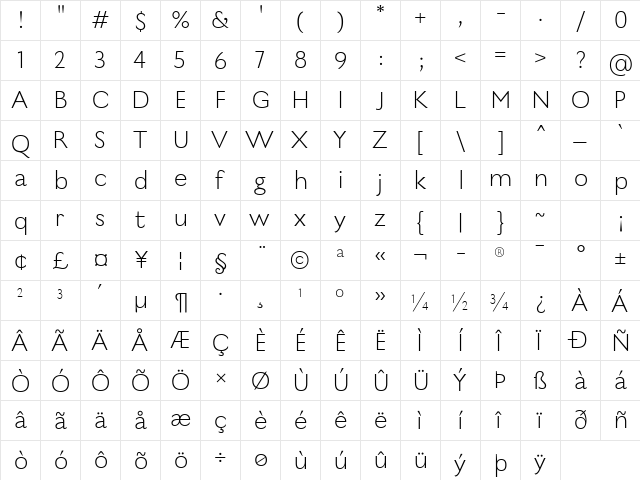
Poison Regular
| Designer | jaikishan Patel |
Design Context for Poison Typeface
Poison takes a measured approach to typography — its balanced proportions and neutral character make it a reliable workhorse for both digital and print work.